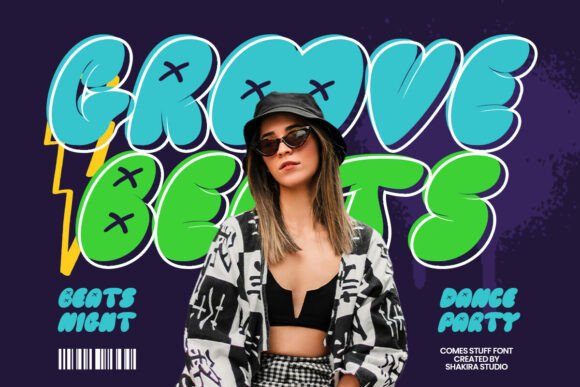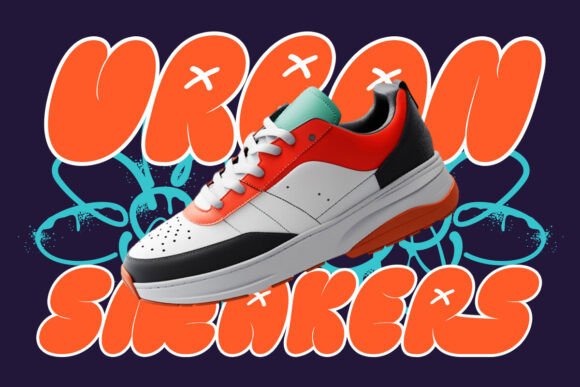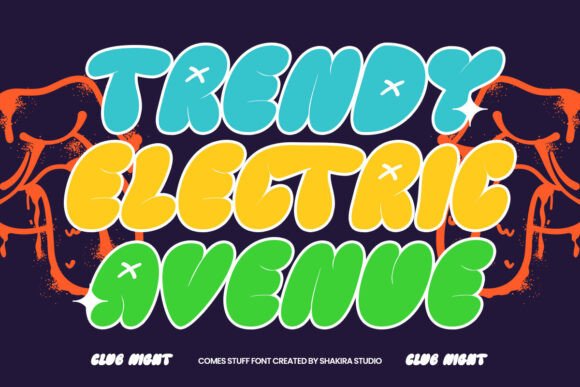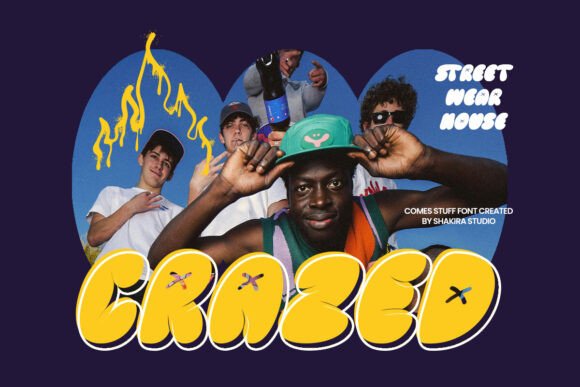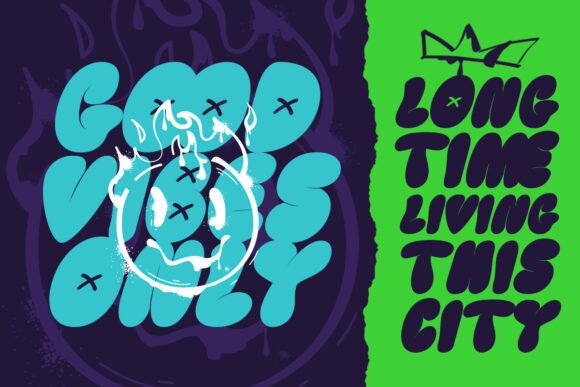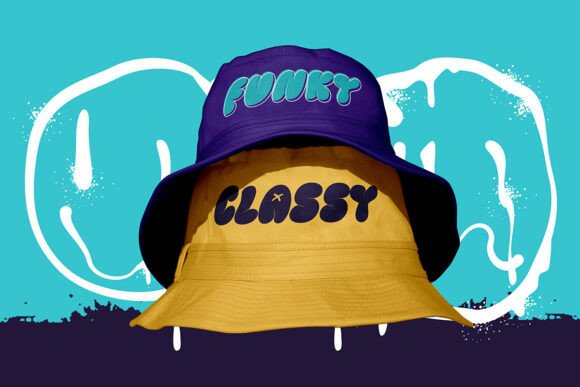
Introducing Comes Stuff Font: The Ultimate Playful Display Font for Fun Branding
Are you looking for a font that can add a dash of fun and playfulness to your branding, logos, packaging, and posters? Look no further than Comes Stuff, a delightful display font that bursts with cheerful personality and rounded charm. In this article, we’ll dive into the world of Comes Stuff and explore its features, benefits, and uses, helping you understand why it’s the perfect choice for designers and crafters seeking to create eye-catching and engaging designs.
What is Comes Stuff Font?
Comes Stuff is an energetic display font designed to bring a smile to your audience’s face. Its playful, bubble-like letterforms and whimsical appeal make it an excellent choice for creating fun and lively designs that spark joy. With its soft, rounded edges and happy-go-lucky aesthetic, Comes Stuff delivers instant fun while maintaining excellent readability.
Key Features of Comes Stuff Font
- Playful and Whimsical: Comes Stuff boasts a unique and playful design, perfect for brands that want to project a friendly and approachable image.
- Rounded Edges: The font’s soft, rounded edges give it a charming and cheerful feel, making it ideal for designs targeting younger audiences.
- Excellent Readability: Despite its playful nature, Comes Stuff maintains excellent readability, ensuring your message is conveyed clearly and effectively.
- Versatile: This display font is perfect for various design applications, including branding, logos, packaging, posters, and more.
Benefits of Using Comes Stuff Font
So, why should you choose Comes Stuff for your design projects? Here are some benefits that make it an excellent choice:
- Instant Fun: Comes Stuff adds a dash of fun and playfulness to your designs, helping you connect with your audience on a more personal level.
- Friendlier Brand Image: By using Comes Stuff, you can project a friendly and approachable brand image, perfect for targeting younger audiences or those seeking a more relaxed brand vibe.
- Easy to Read: The font’s excellent readability ensures your message is conveyed clearly, reducing the risk of miscommunication.
- Unique and Memorable: Comes Stuff’s playful design makes it an excellent choice for creating unique and memorable designs that stand out from the crowd.
Who Can Benefit from Comes Stuff Font?
Comes Stuff is an excellent choice for various designers and crafters, including:
- Branding and Logo Designers: Create eye-catching logos and branding materials that spark joy and convey a friendly image.
- Packaging Designers: Add a dash of fun and playfulness to your packaging designs, making them more engaging and memorable.
- Poster and Flyer Designers: Create lively and attention-grabbing posters and flyers that showcase your message in a fun and creative way.
- Crafters and Makers: Use Comes Stuff to add a personal touch to your craft projects, such as handmade cards, invitations, and DIY decor.
Tips for Using Comes Stuff Font Effectively
To get the most out of Comes Stuff, here are some tips to keep in mind:
- Pair with Neutral Fonts: Combine Comes Stuff with neutral fonts to create visual interest and balance in your designs.
- Experiment with Colors: Try pairing Comes Stuff with bright and bold colors to amplify its playful and whimsical appeal.
- Use for Headlines and Titles: Comes Stuff is perfect for headlines and titles, adding a dash of fun and playfulness to your designs.
- Don’t Overuse: Use Comes Stuff sparingly to avoid overwhelming your designs and to maintain its impact.
| Author | Shakira Studio |
Comes Stuff is a delightful display font that brings a dash of fun and playfulness to your designs. With its playful bubble-like letterforms, soft rounded edges, and excellent readability, it’s perfect for creating eye-catching branding, fun logos, vibrant packaging, and lively poster designs. Whether you’re a designer, crafter, or maker, Comes Stuff is an excellent choice for adding a personal touch to your projects. So, why not give it a try and see how Comes Stuff can elevate your designs to the next level?